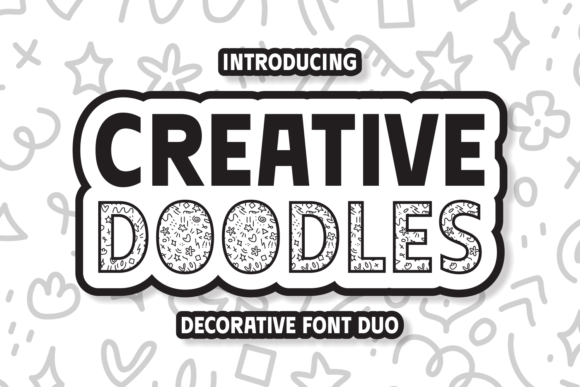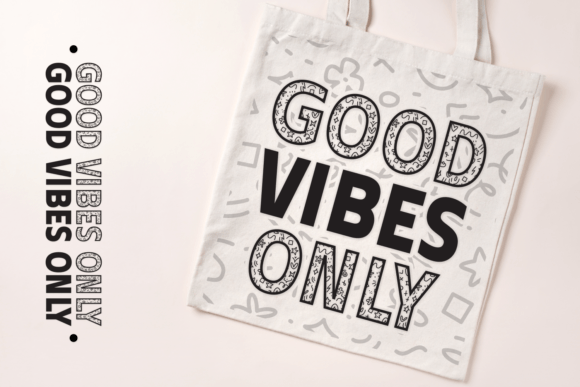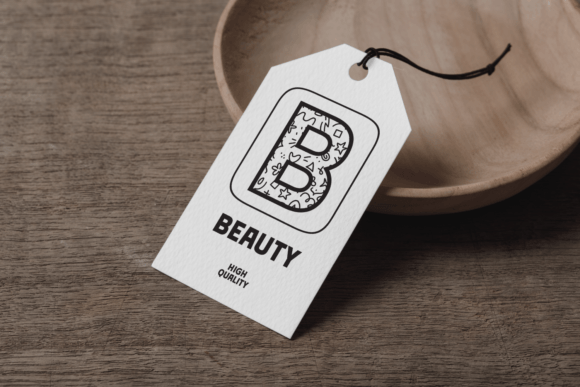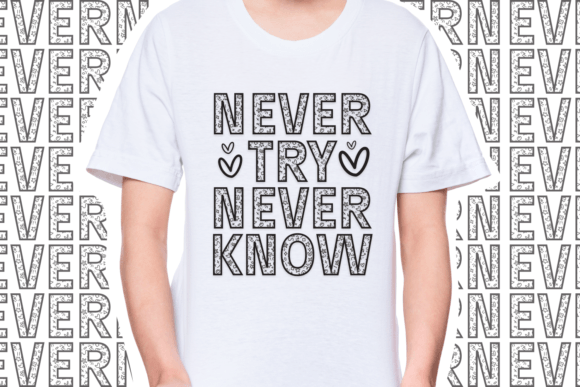
Creative Doodles Font
Creative Doodles is a charming decorative font duo featuring two complementary styles: one solid font and one adorned with playful doodles. This font is ideal for headlines, titles, and other prominent text elements where a bold and impactful look is desired. In the same time, the doodle font adds a unique and artistic flair to designs, making it perfect for adding decorative elements to invitations, greeting cards, posters, and more. Whether used individually or combined, they allow designers to create engaging and visually appealing compositions that stand out and capture the imagination.